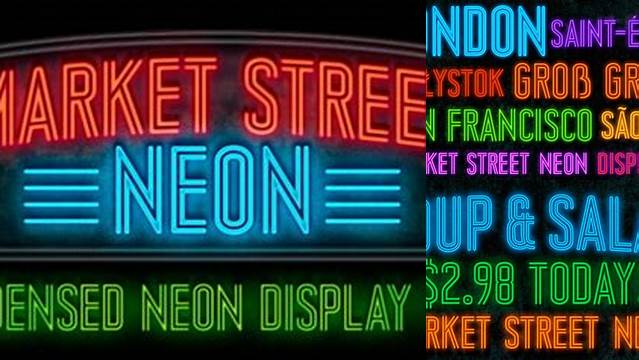
Hey guys! Are you looking to give your designs that cool, retro, and vibrant vibe? Then you've come to the right place! In this article, we're diving deep into the world of market street neon fonts, where you can find amazing options for free download. We'll explore what makes these fonts so special, where to find them, and how to use them effectively in your projects. Get ready to illuminate your creativity!
1. What is a Market Street Neon Font?
So, what exactly is a market street neon font? Think about those classic neon signs you see in bustling city streets, especially at night. These fonts aim to replicate that very aesthetic. They typically feature bright, glowing strokes, often with a slightly imperfect or hand-crafted feel to mimic the look of real neon tubes. These fonts are all about bringing a sense of energy, nostalgia, and urban flair to your designs.
When using a market street neon font, consider the context of your project. These fonts work exceptionally well for anything that needs a touch of retro cool β think posters, flyers, social media graphics, and even website headers. They're also perfect for adding a bit of edginess and personality to branding projects. However, be mindful of readability. Due to their stylized nature, neon fonts aren't always the best choice for large blocks of text. Use them sparingly and strategically to make a real impact. Experiment with different colors and background combinations to find what works best for your design. Remember, the goal is to capture the eye and evoke a sense of vibrant, urban energy.
2. The Appeal of Neon Fonts
Neon fonts have a timeless appeal, and itβs easy to see why. They evoke feelings of nostalgia, bringing back memories of vintage signs and classic storefronts. This sense of nostalgia can be a powerful tool in design, helping to create an emotional connection with your audience. Furthermore, neon fonts bring a vibrant and energetic feel to any project. The glowing effect and bold lines can instantly grab attention, making them perfect for designs that need to stand out. The unique visual characteristics of neon fonts make them highly versatile. Whether you're designing a poster for a rock concert or creating a logo for a modern bar, these fonts can add a touch of style and sophistication. Their ability to blend retro charm with contemporary aesthetics is a key reason for their enduring popularity. The distinct style of market street neon fonts provides a unique way to make your projects memorable and eye-catching.
6. Personal vs. Commercial Use
Understanding the distinction between personal and commercial use is crucial when dealing with free fonts. Personal use typically refers to projects that are non-profit and for your own enjoyment. This could include creating invitations for a party, designing a personal blog, or making gifts for friends and family. Commercial use, on the other hand, involves any project where you stand to make a profit. This includes using the font in a logo for your business, creating marketing materials, or designing products for sale. Many free fonts are licensed for personal use only, meaning you would need to purchase a commercial license to use them in any income-generating activity. Always check the font's licensing agreement carefully to ensure you are complying with the terms. Using a font for commercial purposes without the proper license can lead to legal issues, so it's always better to be safe than sorry. When in doubt, contact the font designer or distributor for clarification.
8. Using Neon Fonts in Graphic Design
Integrating neon fonts into your graphic design projects can instantly elevate their visual appeal. The key is to use them strategically. Neon fonts work best for headlines, logos, and short bursts of text where you want to make a statement. Avoid using them for large blocks of body text, as their intricate designs can become difficult to read. Experiment with different color combinations to enhance the neon effect. Bright colors like electric blue, hot pink, and vibrant yellow work particularly well against dark backgrounds. Consider adding subtle glow effects or shadows to further mimic the look of real neon signs. When pairing neon fonts with other typefaces, opt for clean and simple sans-serif fonts to maintain balance and readability. Remember, the goal is to create a visually striking design that captures attention without sacrificing clarity. With a bit of creativity and experimentation, you can harness the power of neon fonts to create truly memorable designs.
30. Showcasing Your Neon Font Designs
Once you've created your amazing neon font designs, it's time to show them off to the world! Consider creating a portfolio website to showcase your work. Include high-quality images of your designs, along with descriptions of the creative process and the tools you used. Share your designs on social media platforms like Behance, Dribbble, and Instagram. This is a great way to get feedback from other designers and reach a wider audience. Enter your designs in design competitions and contests. This can be a great way to gain recognition and win prizes. Reach out to potential clients and collaborators to showcase your work. Attend design events and conferences to network with other designers and potential employers. By showcasing your neon font designs effectively, you can increase your visibility, attract new clients, and advance your career.